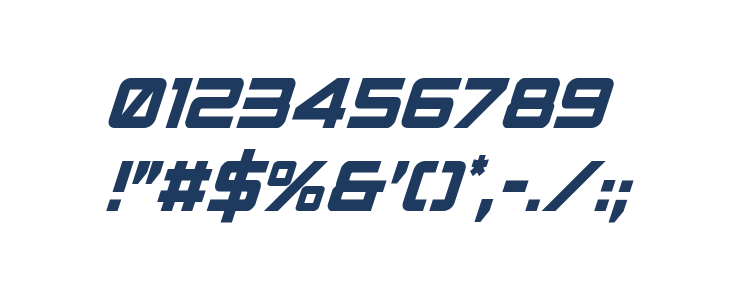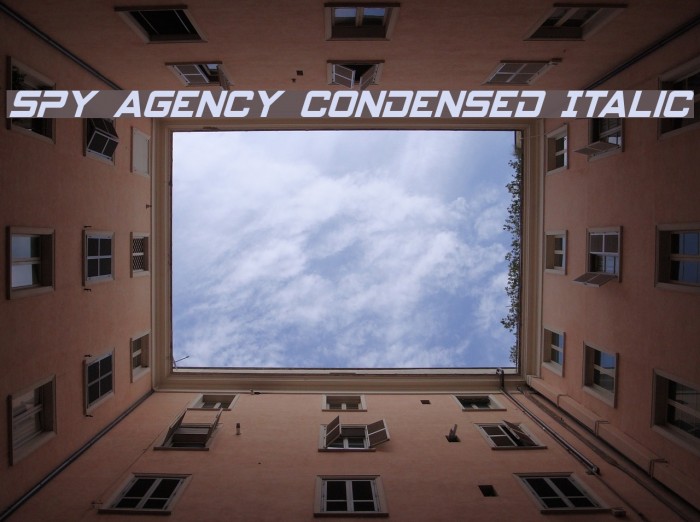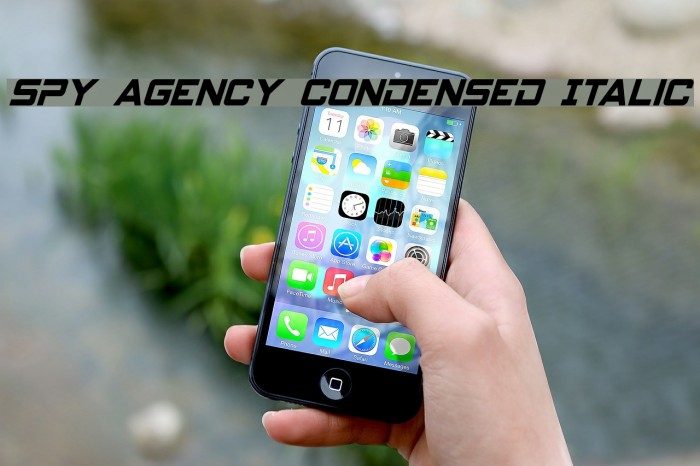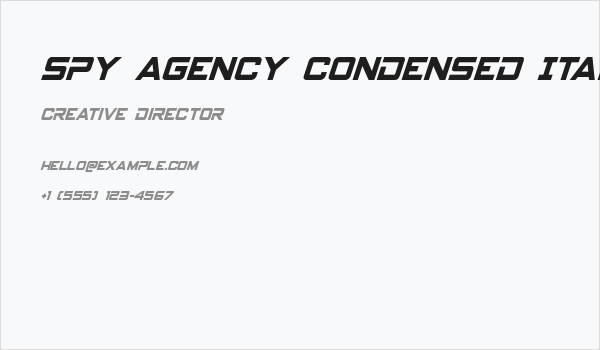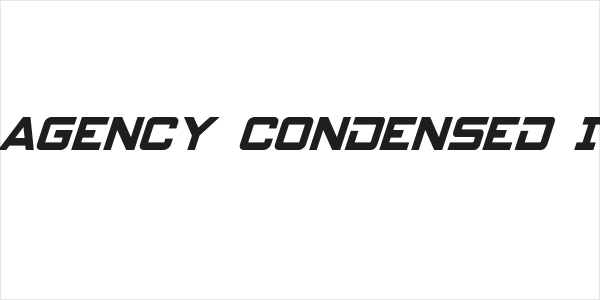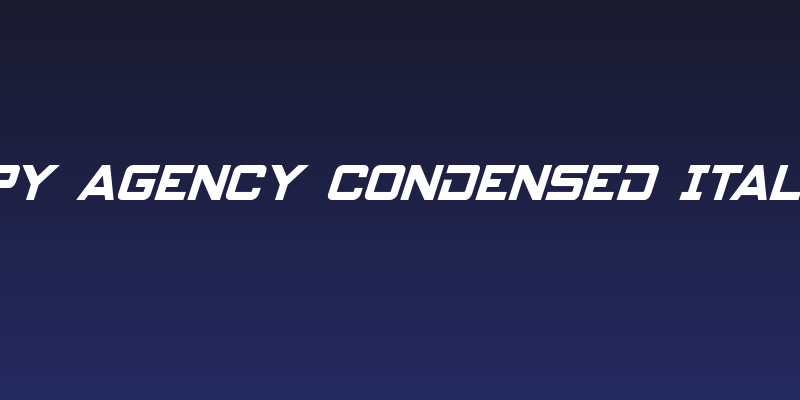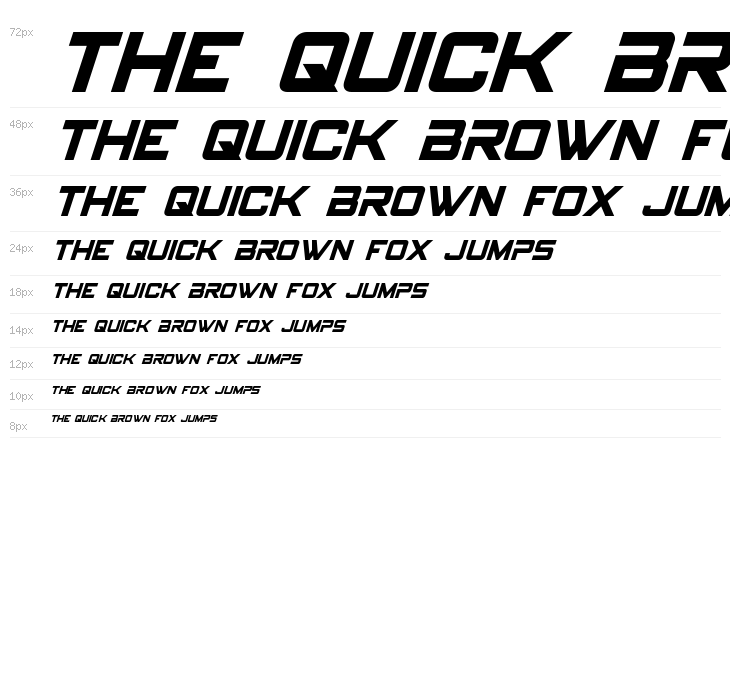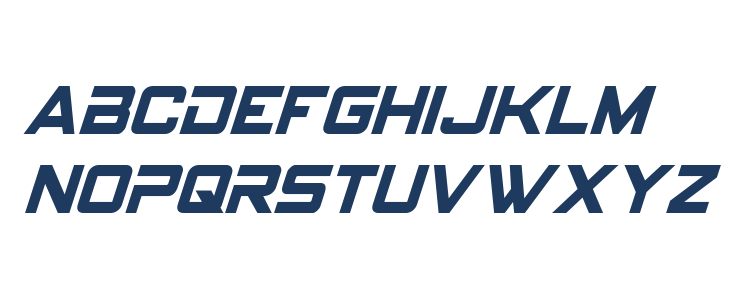
Spy Agency Condensed Italic Font
Spy Agency Condensed Italic Description
This font features a sleek, modern design with a condensed and italicized style. The characters are bold and angular, giving a sense of speed and urgency. The uppercase letters are particularly striking, with sharp edges and a forward-leaning posture that suggests movement. The numerals and special characters maintain the same dynamic aesthetic, making them suitable for attention-grabbing headlines or branding. The overall appearance is futuristic and tech-oriented, ideal for projects that require a contemporary and edgy look.